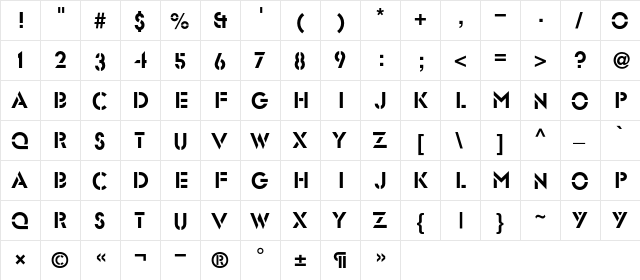
GlastenC Regular
Design Context for GlastenC Typeface
GlastenC is a composed and adaptable typeface that performs quietly and consistently across a wide range of design contexts.